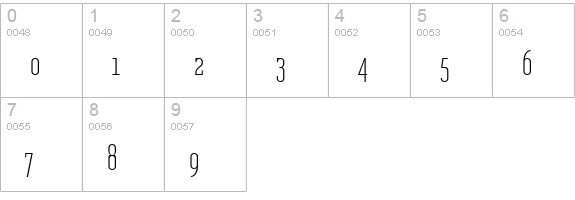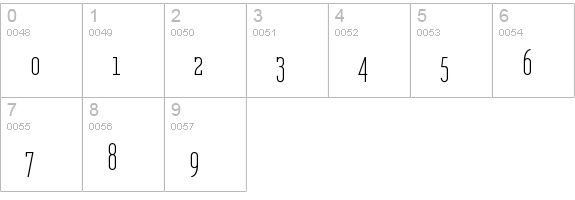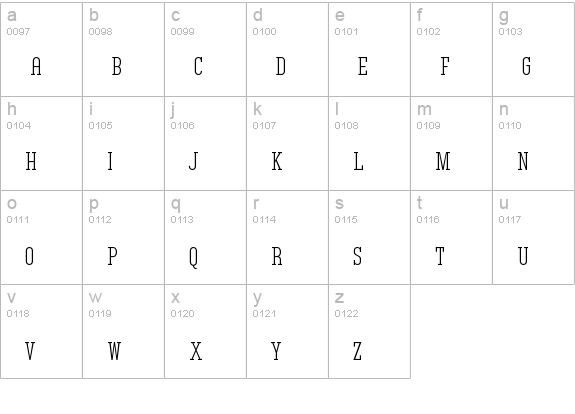
Unknown Caller BTN SC is a captivating and versatile font that adds a touch of mystery and intrigue to any design. With its unique and stylish letterforms, this font exudes a sense of curiosity and enigma, making it the perfect choice for projects that require an element of surprise. Designed with meticulous attention to detail, Unknown Caller BTN SC features sleek and modern lines that effortlessly blend together to create a harmonious and visually appealing composition. Its condensed nature allows for maximum impact in limited spaces, making it ideal for headlines, titles, and other attention-grabbing elements. This font offers a wide range of character variations, allowing you to experiment with different styles and create a truly personalized look. Whether you're aiming for a sleek and sophisticated design or a bold and edgy aesthetic, Unknown Caller BTN SC has got you covered. The best part? Unknown Caller BTN SC is available for free download at FontsMarket.com. This means that you can easily access and use this captivating font for your personal and commercial projects without breaking the bank. Simply head over to FontsMarket.com, locate Unknown Caller BTN SC, and start adding a touch of mystery and intrigue to your designs today. So why wait? Elevate your design game with Unknown Caller BTN SC and let its captivating charm take your projects to new heights. Download it now for free at FontsMarket.com and unlock the hidden potential of your creative endeavors.